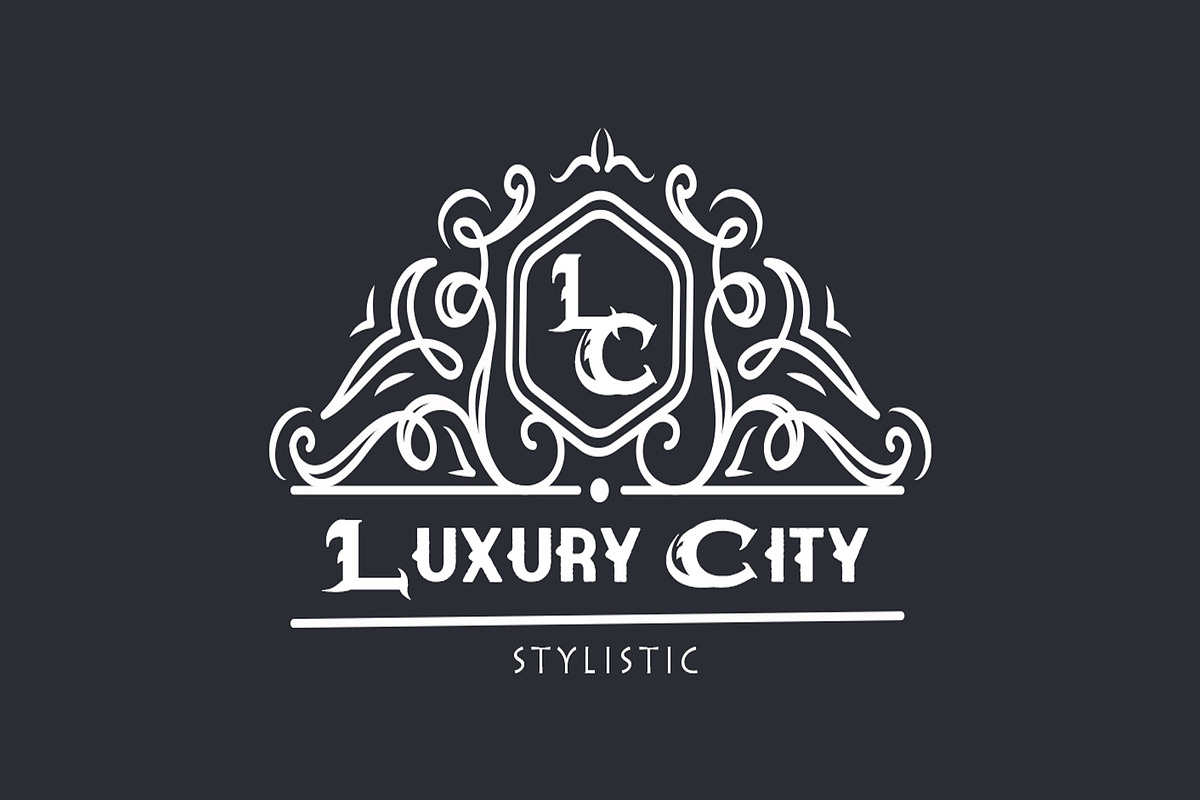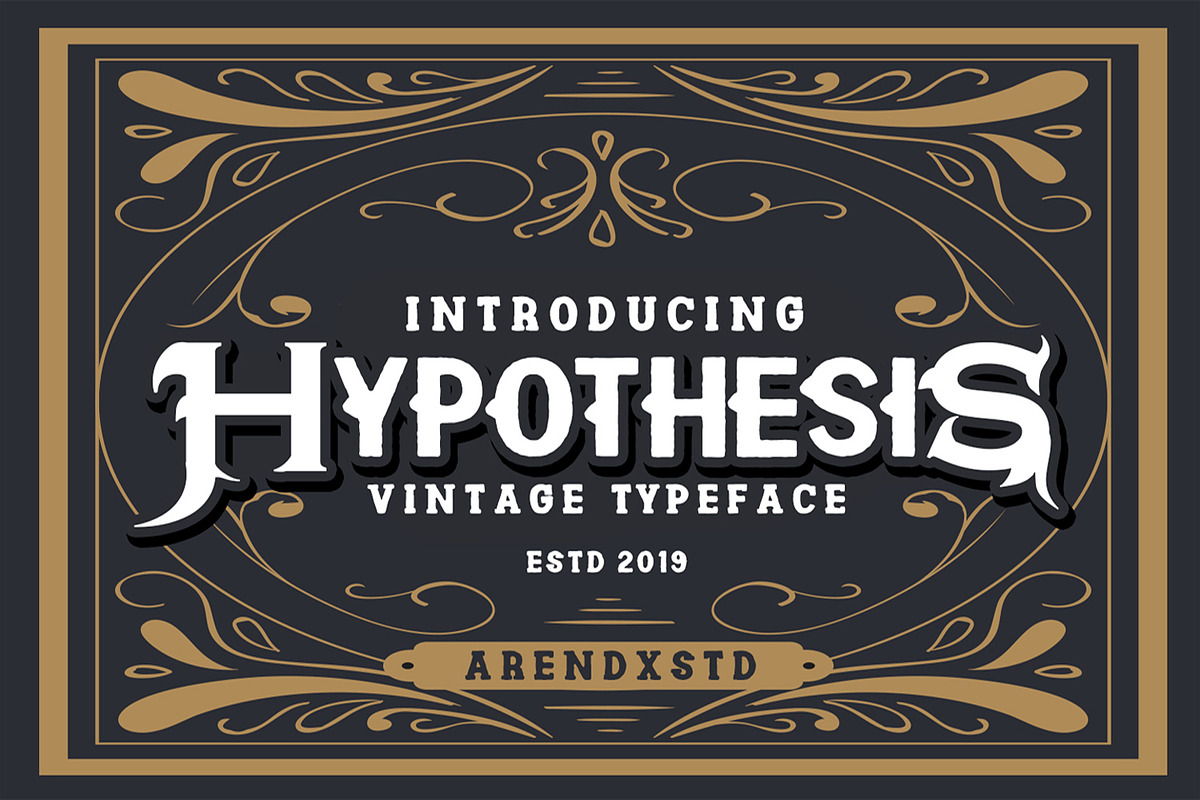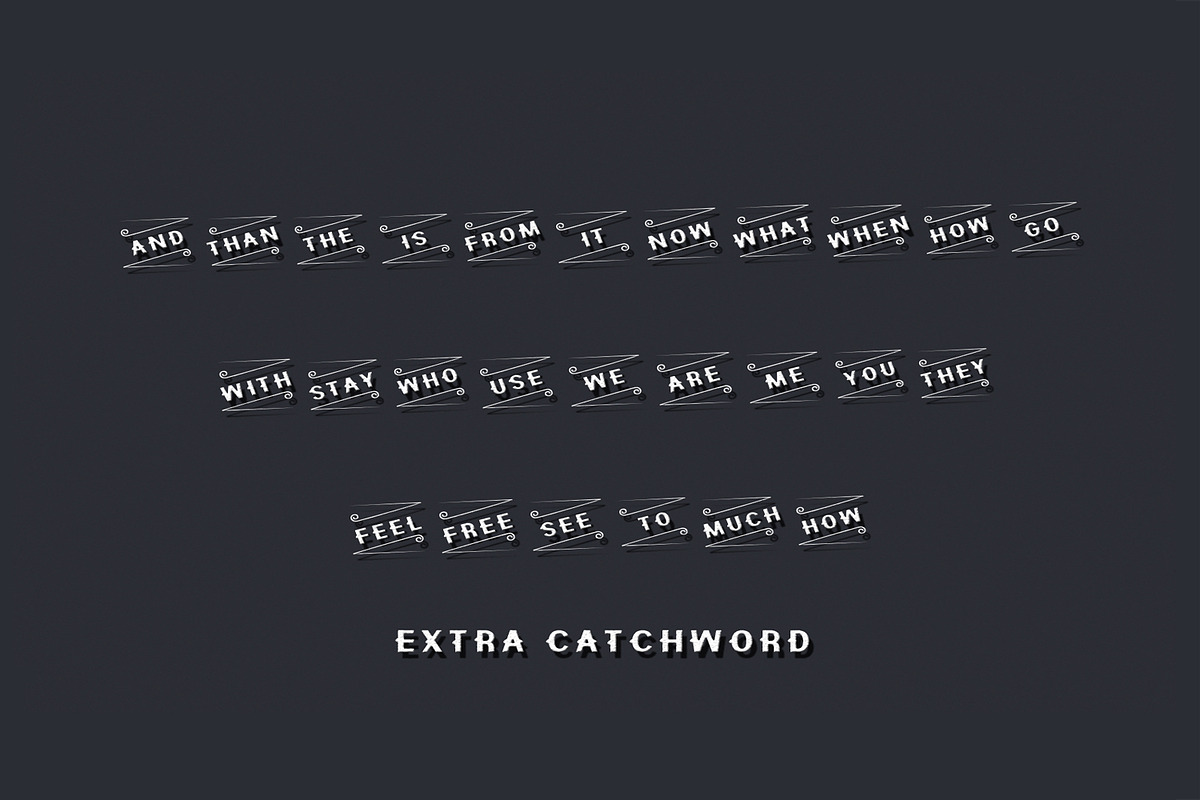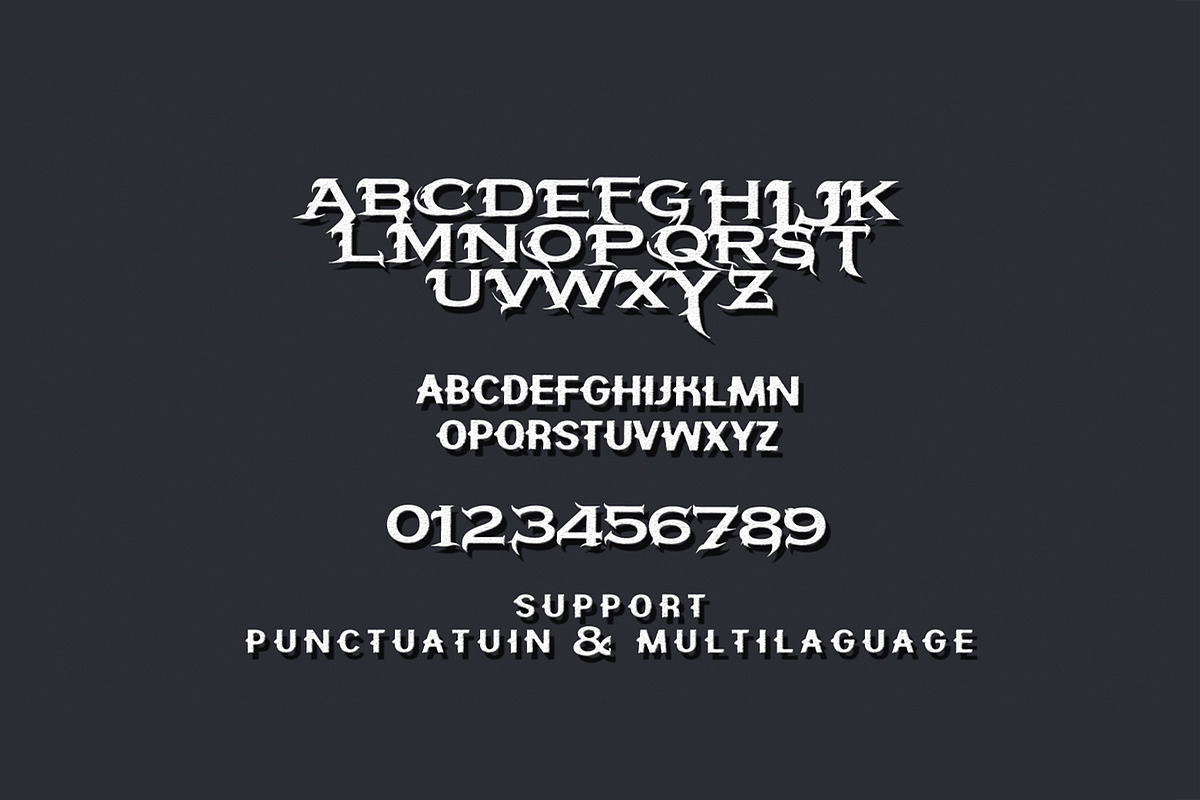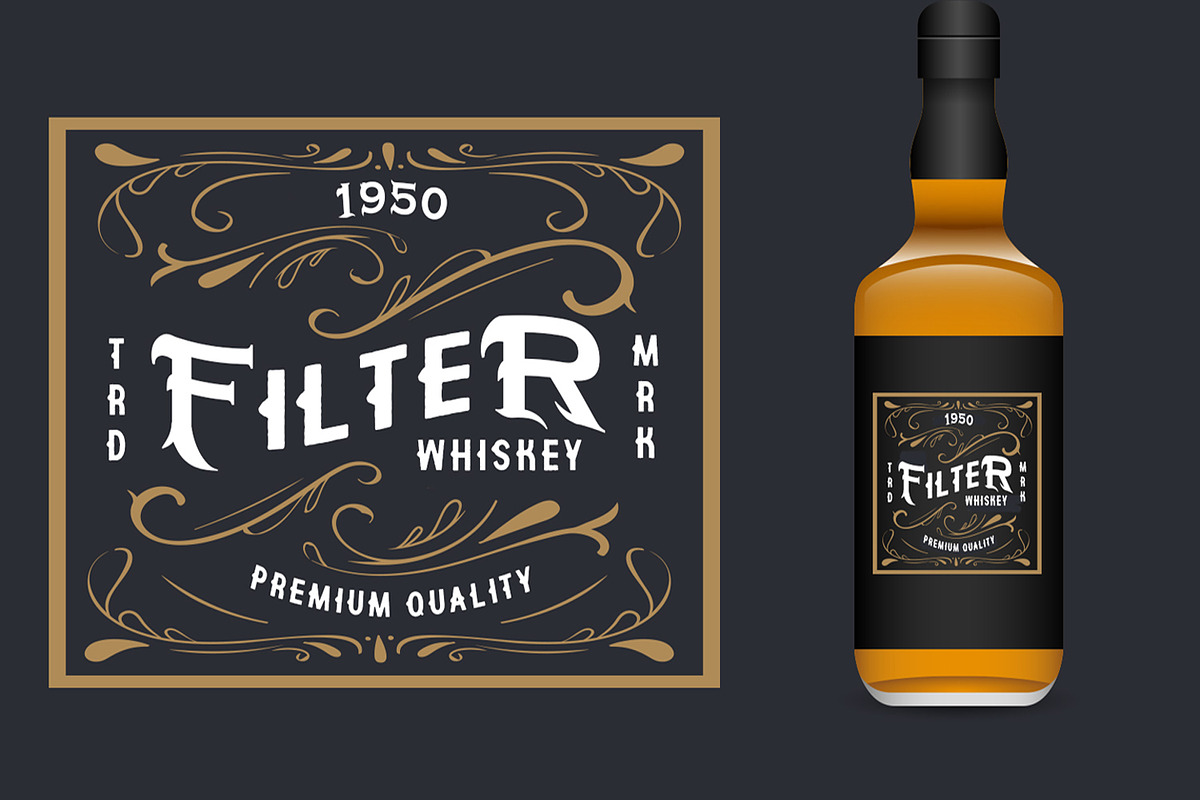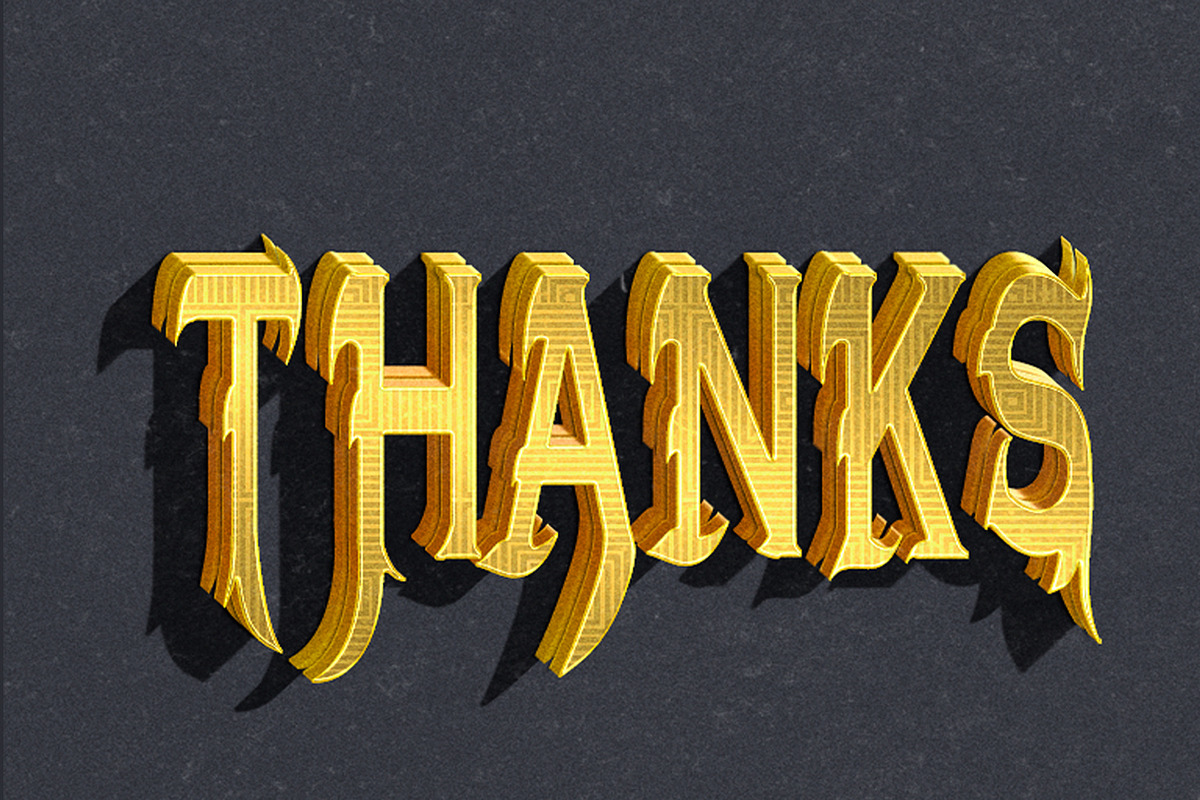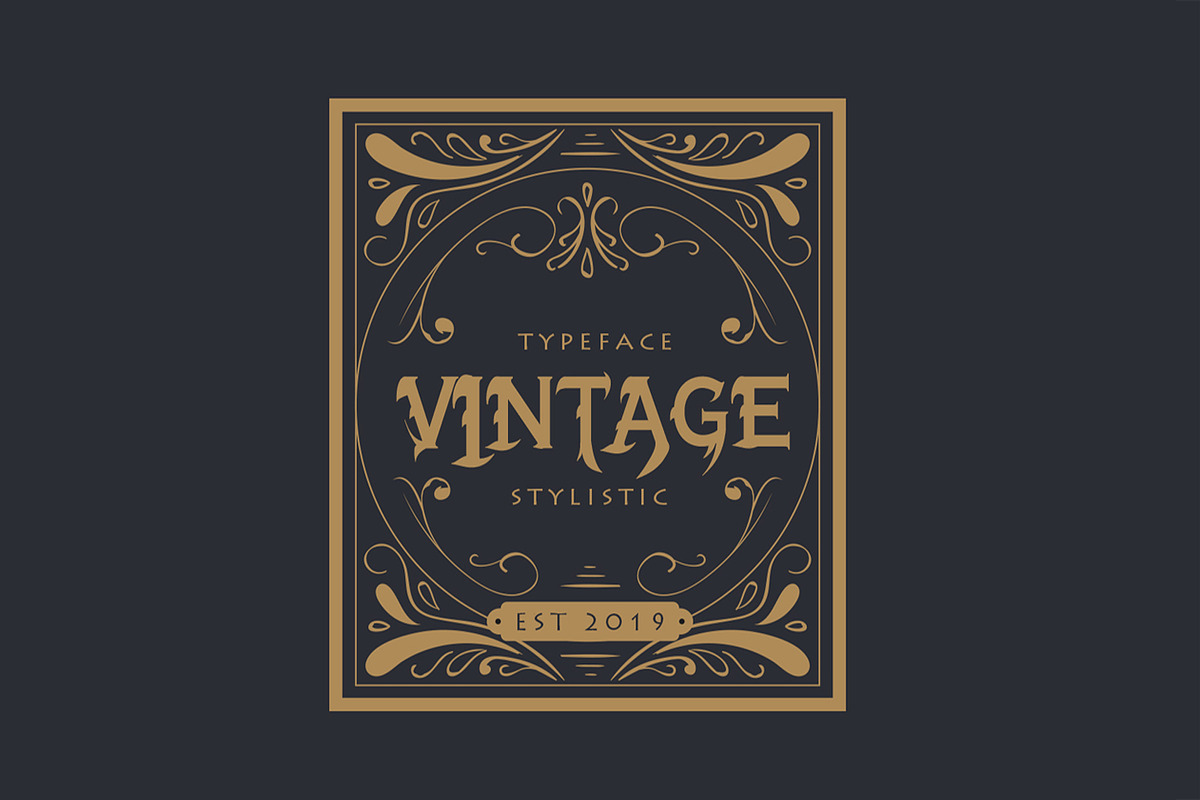
Hypothesis - Vintage Typeface
Hypothesis is a typeface inspired in tattoo letters, chicano culture and calligraffiti. It works well with normal size text, but it works even better for large displays, short words, or even just to incorporate a few or single characters in a design. Suitable for many creative products & tattoo designs, like posters, t-shirt, street wear, logo, signage, headlines, etc.
Feature Include : 1.Uppercase & Lowercase 2.Numer & Punctuation 3.Grunge 4.Catchword 5.multilaguage support